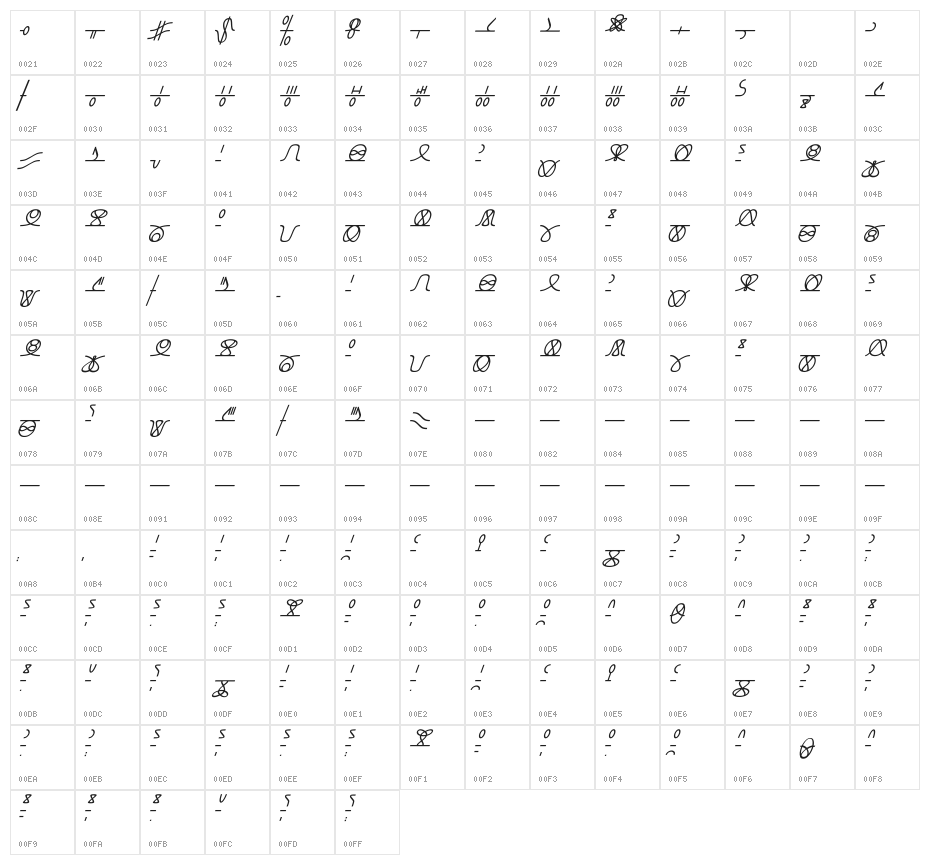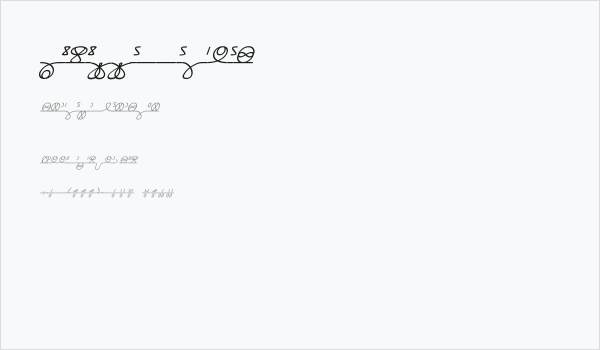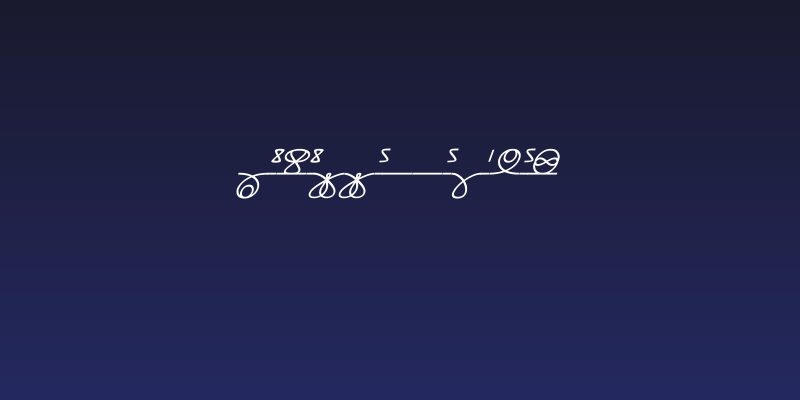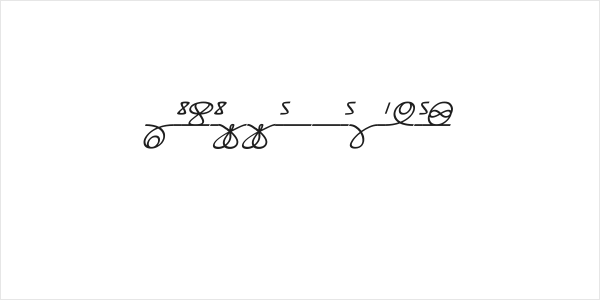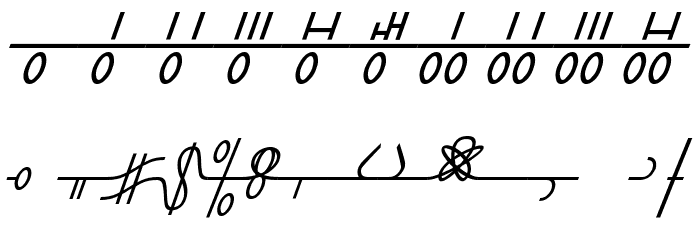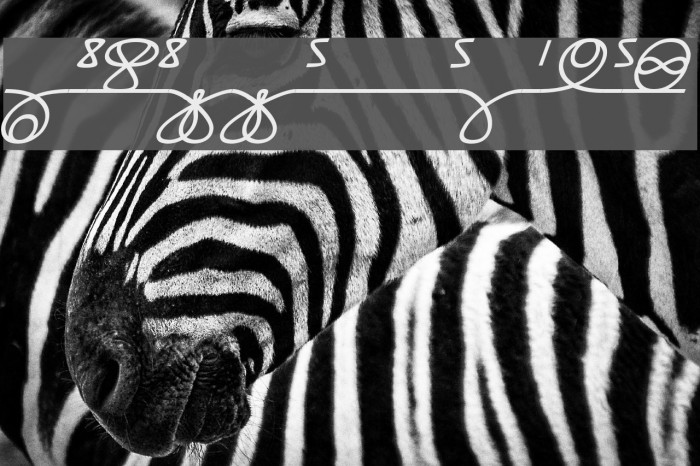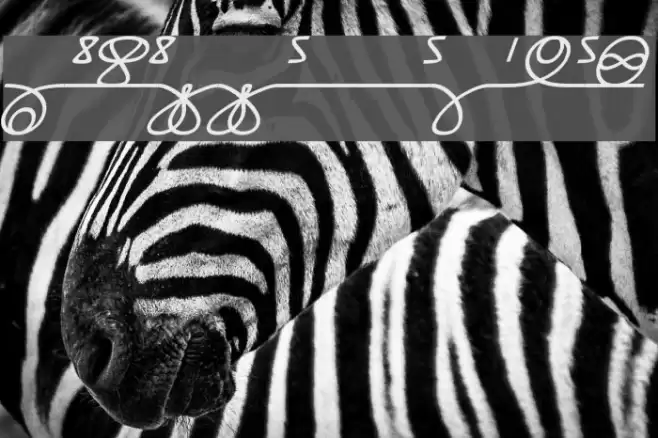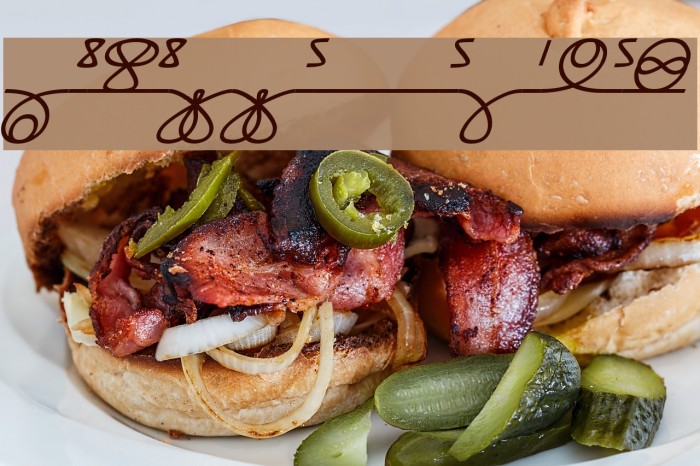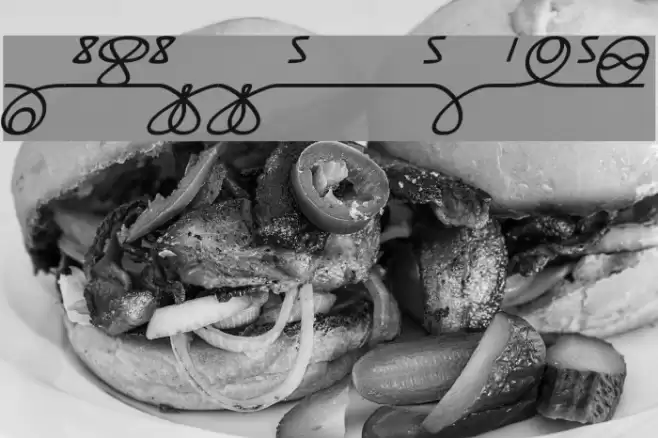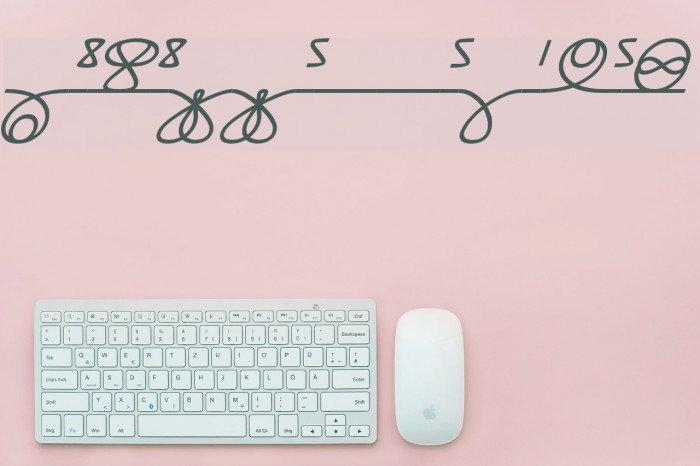
Numukki Italic Font
This font exhibits a highly decorative and intricate design, characterized by its elaborate loops and swirls that create a sense of movement and elegance. The characters are interconnected with flowing lines, giving it a cursive, almost calligraphic appearance. The uppercase and lowercase letters maintain a consistent style, with each character featuring unique embellishments that enhance its ornate quality. The numbers and special characters are equally stylized, ensuring a cohesive look across all glyphs. This font's distinctiveness makes it suitable for creative and artistic projects where a touch of sophistication and flair is desired.
| Use Case | Logos, Invitations, Artistic designs |
| Proposed Projects | Ideal for wedding invitations, artistic posters, branding for luxury products, and any design requiring a sophisticated touch. |